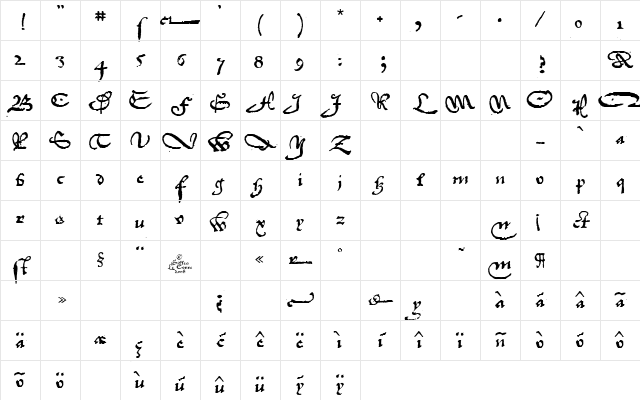
1742Frenchcivilite Regular
Design Context for 1742Frenchcivilite
1742Frenchcivilite is a composed and adaptable typeface that performs quietly and consistently across a wide range of design contexts.